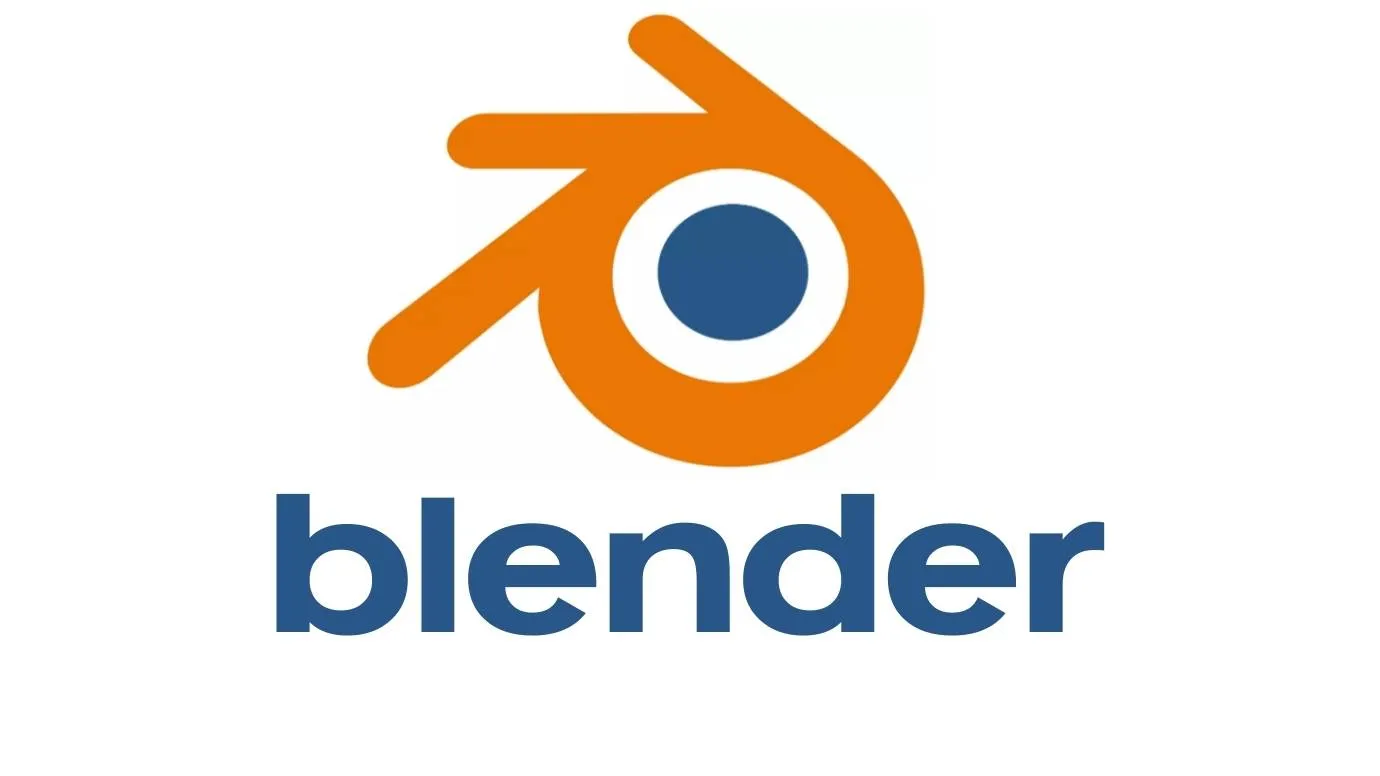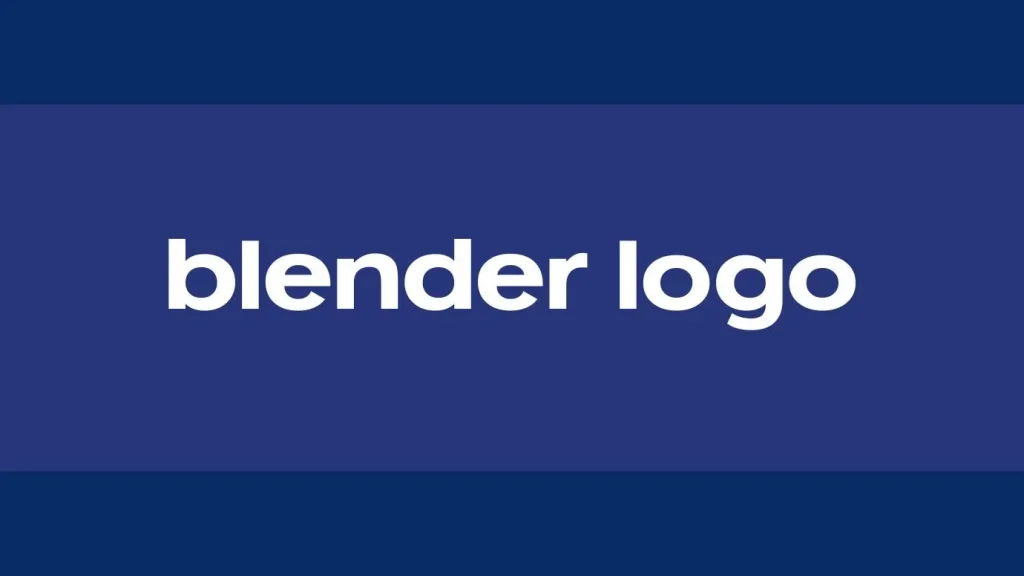
Blender Logo Font is designed by Jeroen van Aken this fancy design has a unique character set. Your project will appear better using this font.
The distinctive characters of this typeface give it a sense of elegance, which makes it ideal for creating unique tasks. All project will sparkle when it is designed in this lettering.
All projects can get benefit from the sophistication that this font brings. This is an excellent option if you’re seeking a font that’s both stylish and typical.
Main Features of Blender Logo Font
There are smaller capital letters in it. Using this font in combination with many other typefaces can truly assist produce an original and eye-catching style.
It is ideal for giving your work uniqueness as well as making it differentiate itself from other projects. This font is popular among developers due to its fashionable and distinctive look.
| Designer | Jeroen van Aken |
Usage of Blender Logo Font In Brands
Users can utilize this typeface to create amusing and original content. Anybody looking to give your works a little uniqueness should choose this lettering type.
If you want to create logos or text designs that make your designs more fantastic then this typeface is the perfect option for you. To ensure optimal audience response, incorporate the polya font in conjunction with this font family for a compelling pairing.
Its versatile design can be used in Adobe Photoshop, Canva, and other designing programs to create logos, images, and text designs. Over a hundred characters and unique glyphs can be found in this typeface.
Aside from social media posts, website designs, banner designs, and posters, you can also use this attractive typeface for creating social media posts.
Watermarks and photography designs are just the amazing uses for this beautiful typeface. Shirts, advertisements, and newsletters can all be designed with this typeface.
Uppercase and Lowercase Characters
Who designed Blender Logo Font?
The Blender Logo typeface is designed by Jeroen van Aken this fancy design has a unique character set.